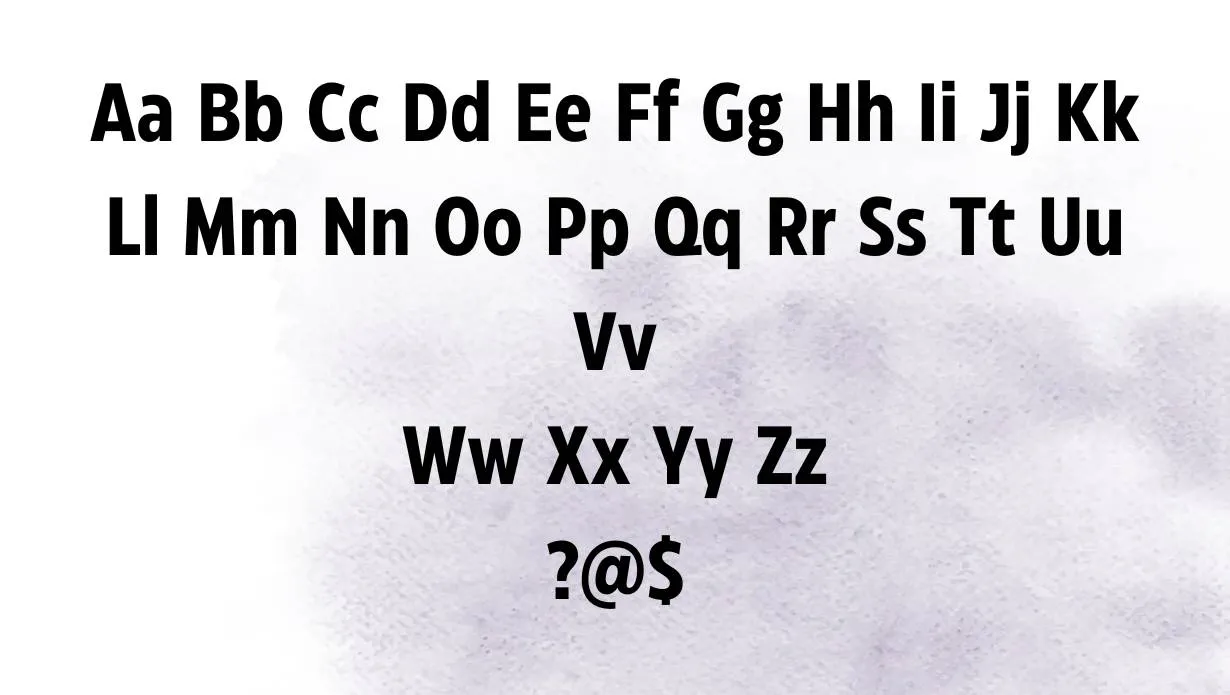
The Condensed font, with its sleek and narrow letters, is ideal for designs requiring a modern and minimalist appearance, often seen in titles, headlines, or branding elements.
| Name | Condensed Font |
| Designer | Tagir Safayev |